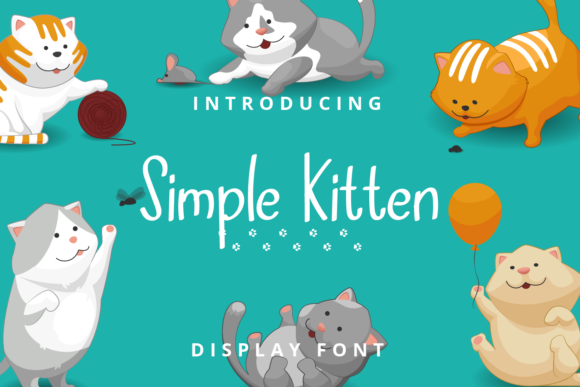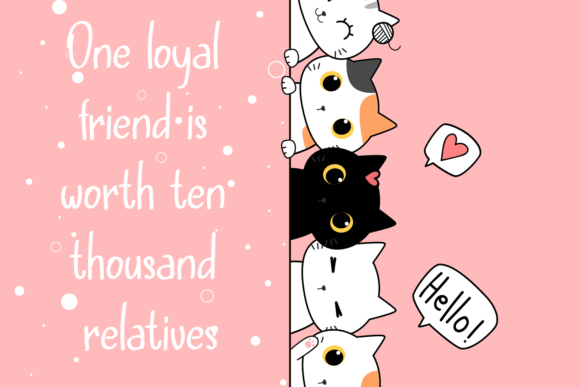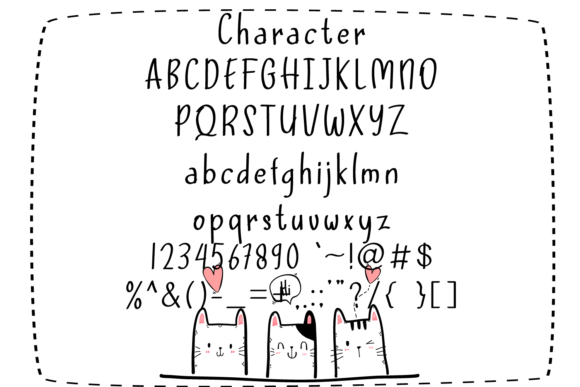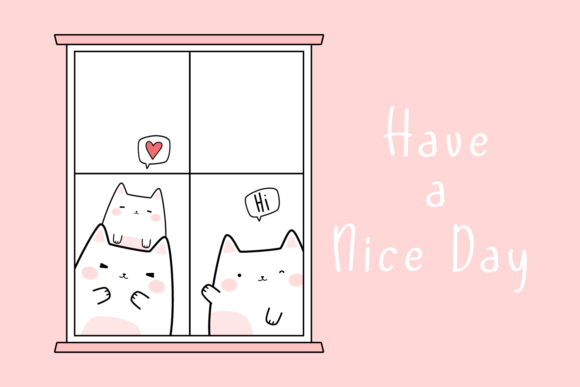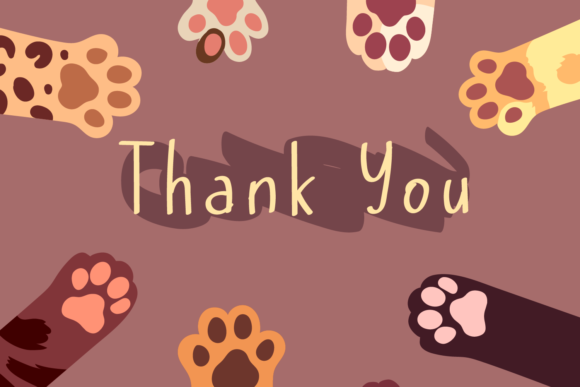
Simple Kitten Font
Simple Kitten is a cool and fun looking handwritten font. No matter the topic, this font will be an incredibly asset to your fonts’ library, as it has the potential to elevate any creation.